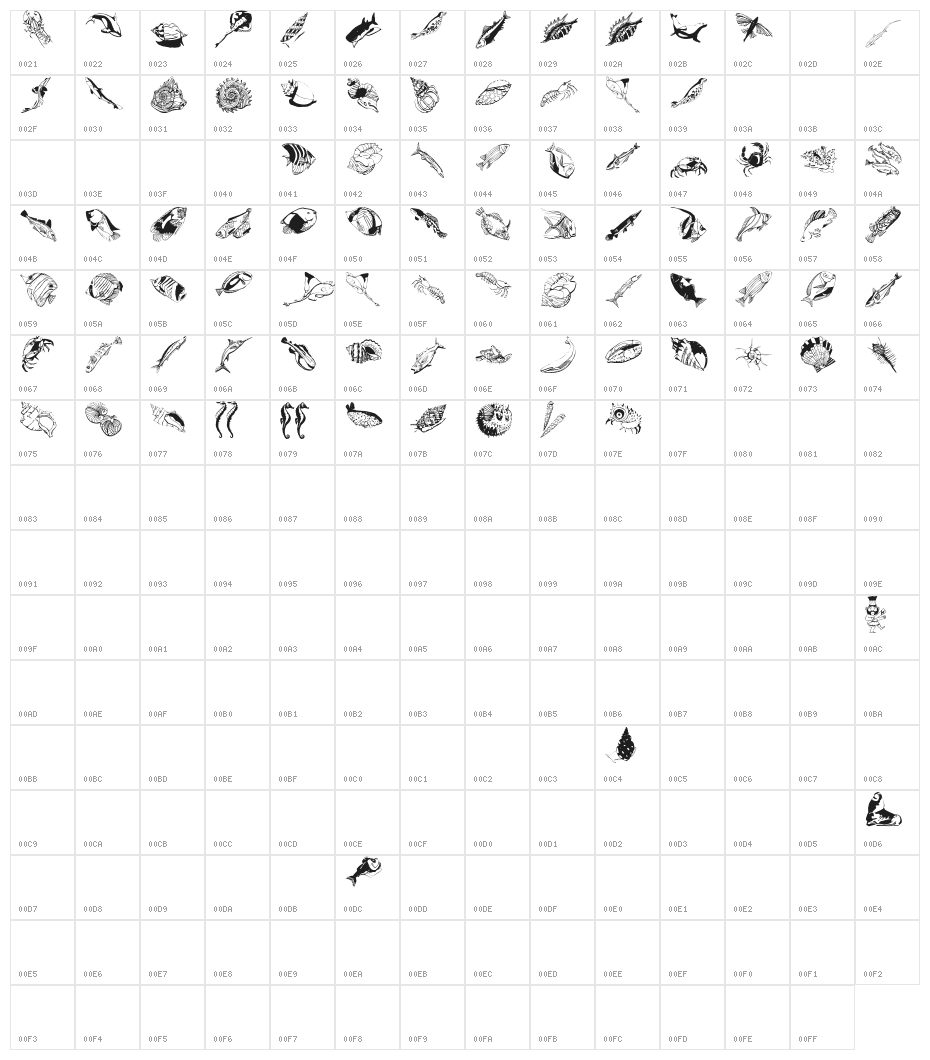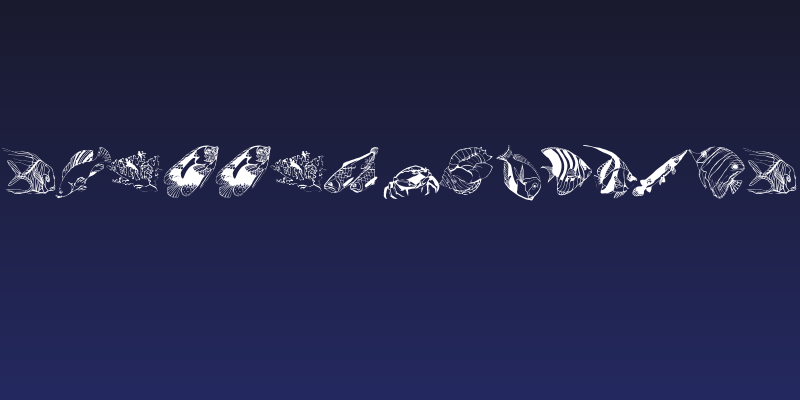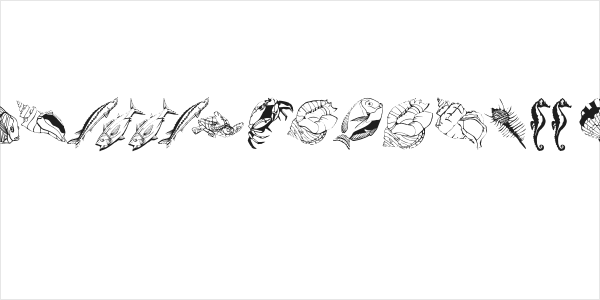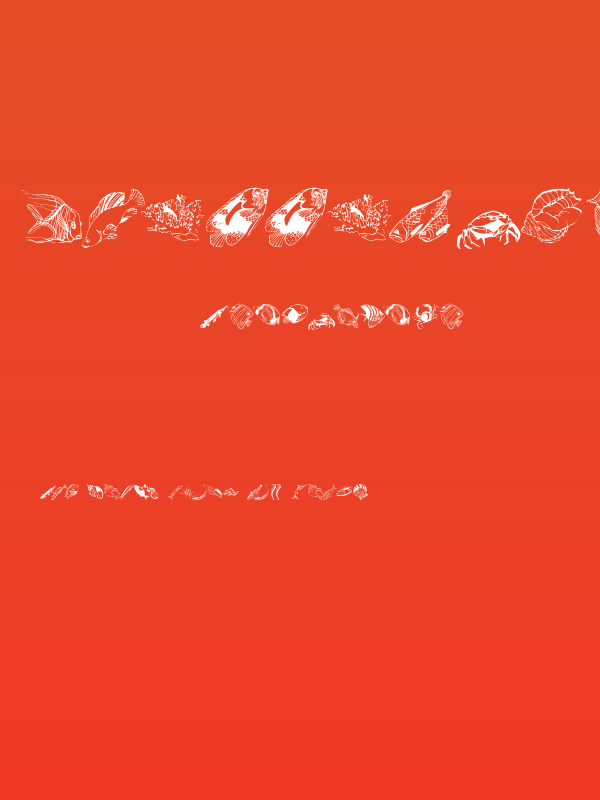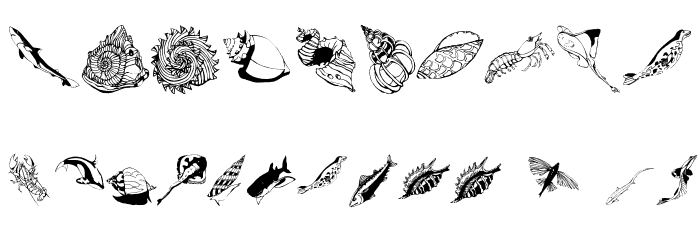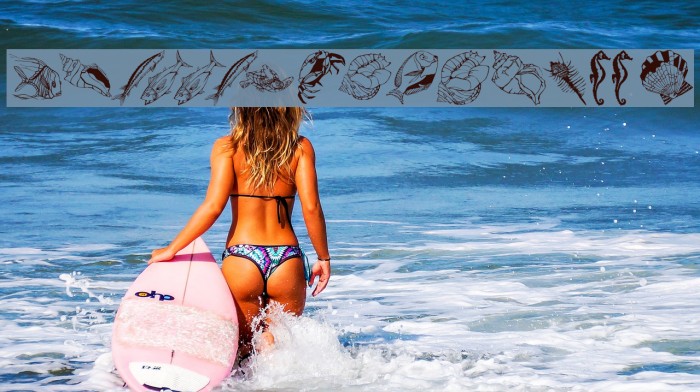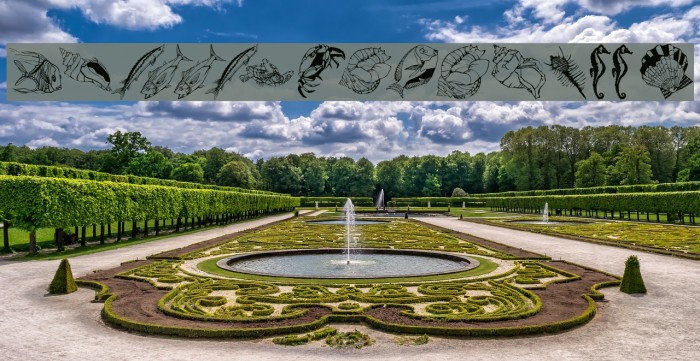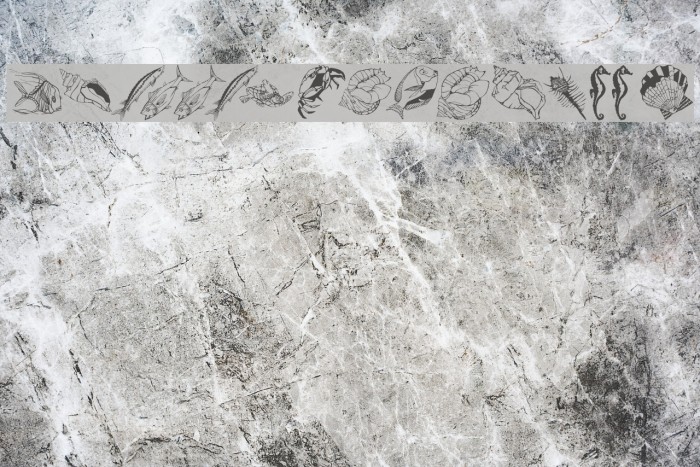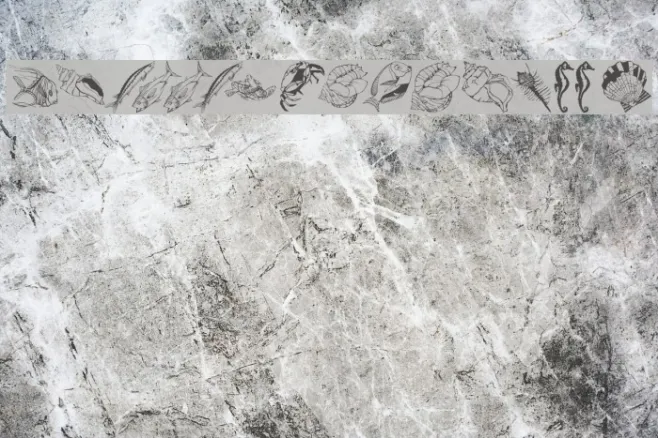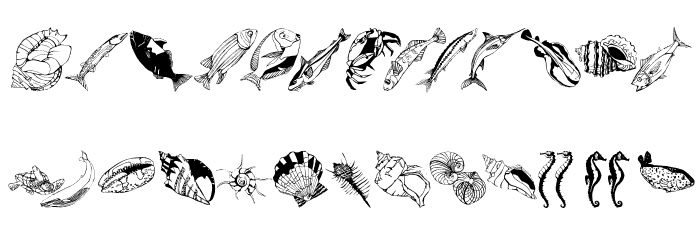
SwimmingBeautys Font
SwimmingBeautys Description
A decorative font composed of detailed black and white illustrations of various sea creatures, shells, and marine life, each representing a different character. The glyphs are highly illustrative and organic, with intricate linework and varying shapes.
| Overall Style | Decorative, Illustrative, Thematic |
| Use Case | Logos, Headlines, Posters, Themed graphics |
| Proposed Projects | Children’s books, educational materials, aquarium branding, ocean-themed event posters, creative invitations. |